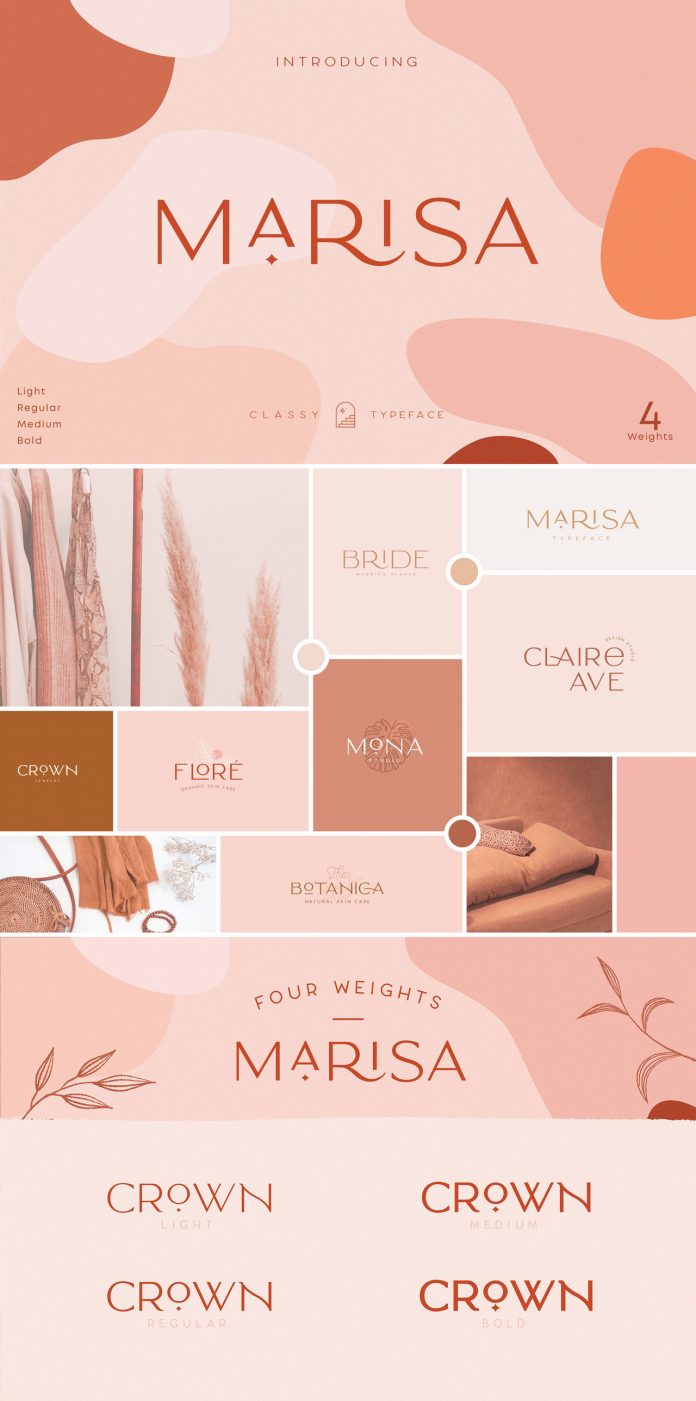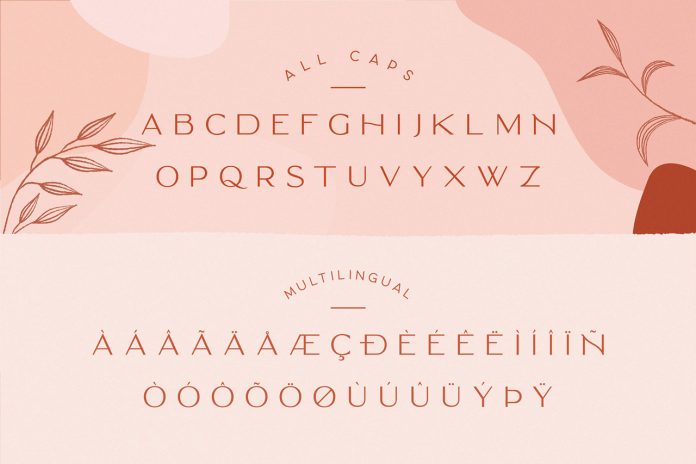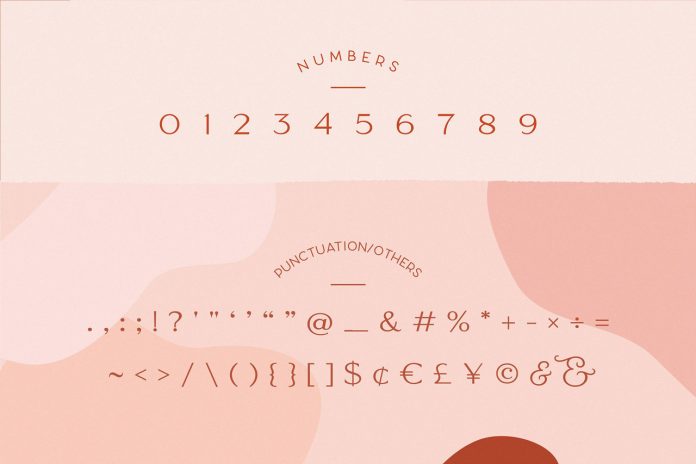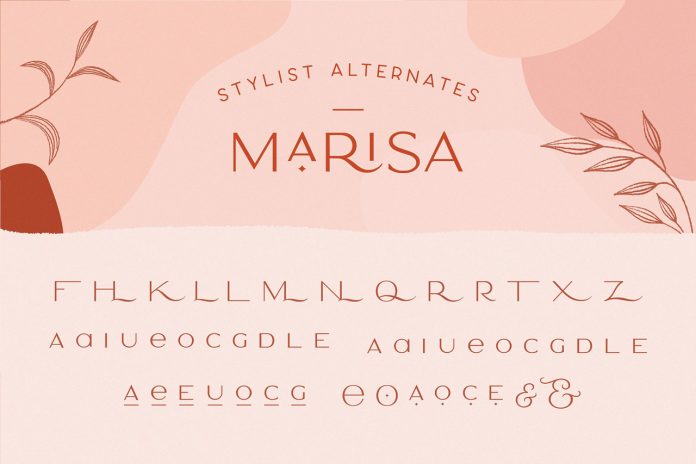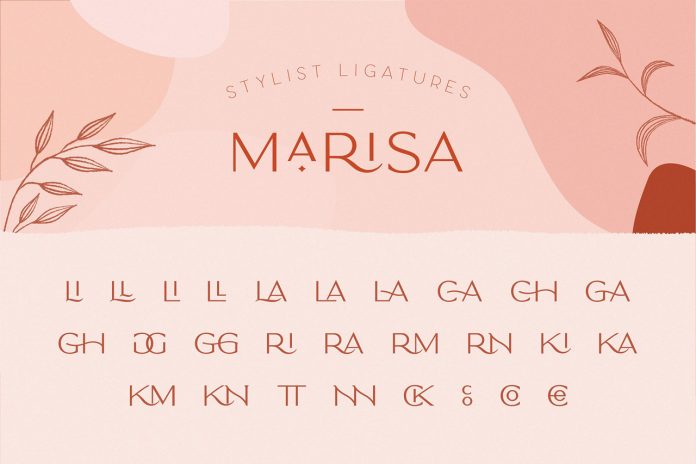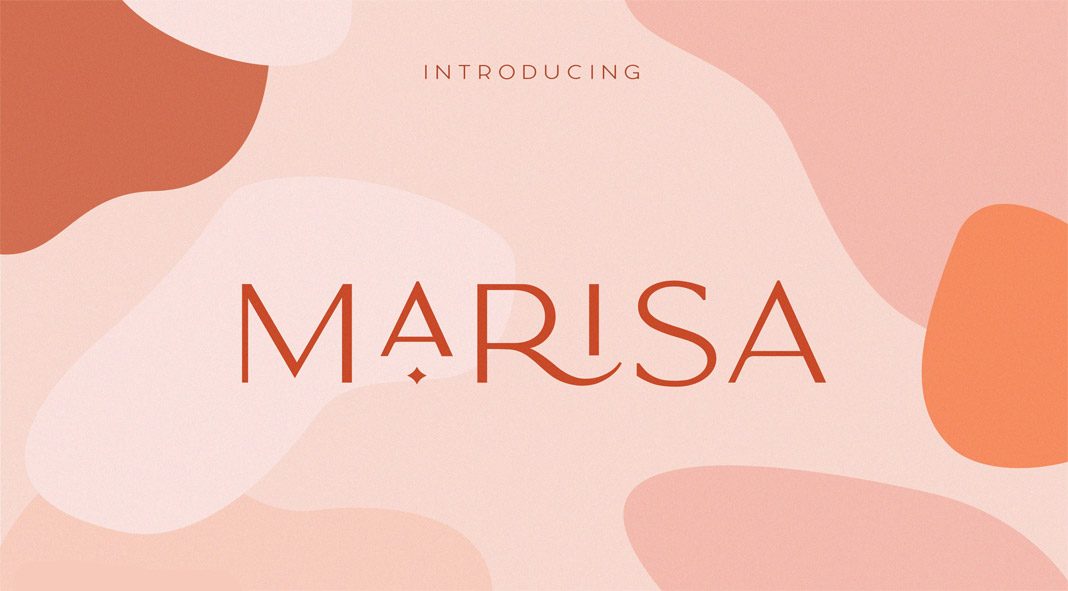
Classy Marisa, an elegant vintage-inspired font for display use.
Designed and recently published by the team of NEWFLIX.Bro, Classy Marisa is an elegant display font that comes with lots of beautiful ligatures, alternative glyphs, ornaments, and multi-language support. Equipped with four weights, this beautiful and versatile font is a great choice for branding projects as well as signage, logos, clothing, packaging, magazine headlines, etc.